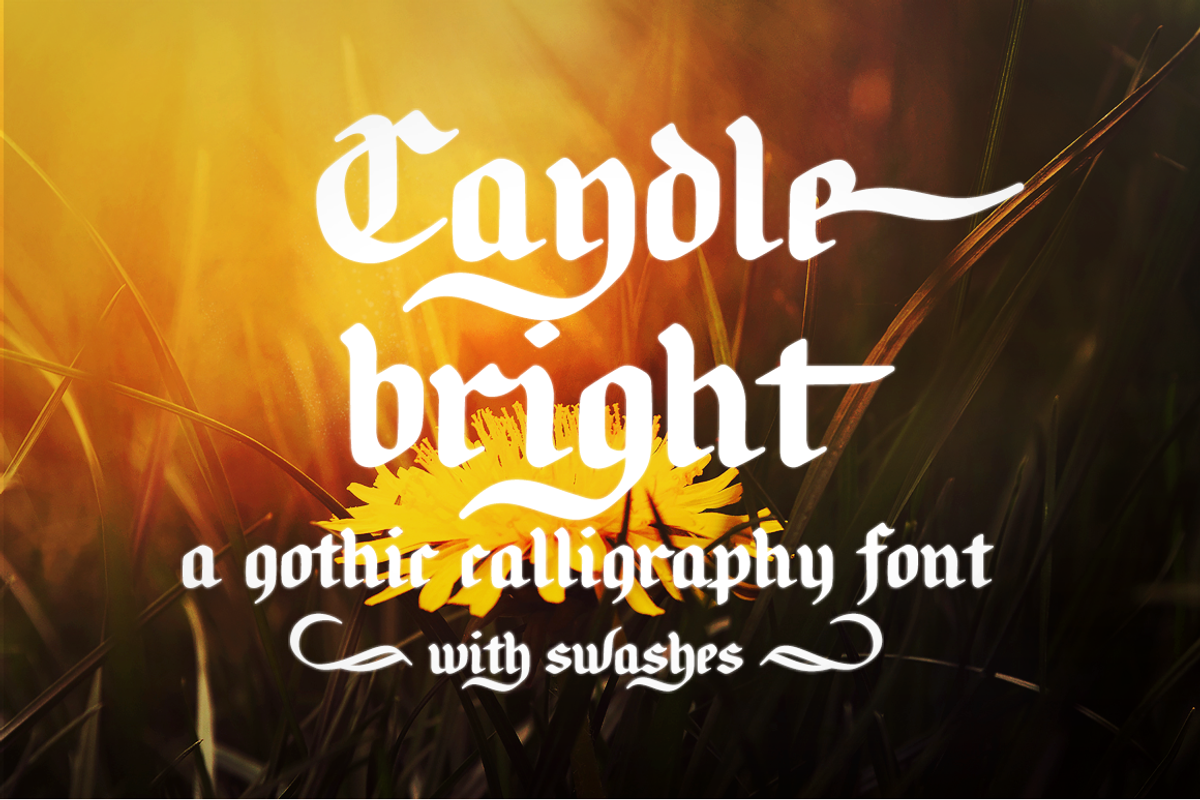
Candlebright blackletter font Free Download
Candlebright Blackletter Font Free Download is a dramatic and ornate typeface inspired by medieval scripts and gothic calligraphy. Please note, you are required to purchase this font for commercial use. It is available for free download for testing and personal projects only.
With its sharp serifs, intricate details, and bold presence, Candlebright is perfect for tattoo designs, metal band logos, fantasy titles, vintage posters, and anything that demands an old-world, mysterious vibe. It adds intensity and style to your typography while remaining legible and impactful.